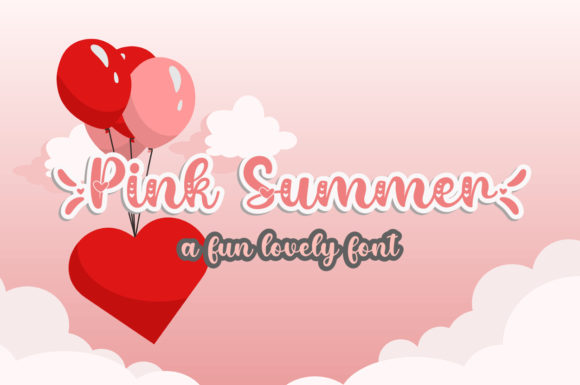
Dive into the realm of elegance and grace with Pink Summer Font, a breathtaking script typeface that will transform your designs into captivating works of art. Its characters, like nimble dancers, pirouette along the baseline, adding a touch of sophistication and charm to every word.
Indulge in the romance and sweetness of Pink Summer's calligraphy, a font that evokes the essence of love and joy. Let your designs blossom with the beauty of its sweeping strokes and delicate flourishes. Picture the allure of wedding invitations adorned with Pink Summer's enchanting script, or the allure of branding materials that exude a timeless charm.
Unleash your creativity and let Pink Summer's magic elevate your designs to new heights. Its PUA encoding grants you effortless access to a world of stunning glyphs and ligatures, empowering you to craft intricate and visually captivating compositions. Whether you're crafting logos, posters, or social media graphics, Pink Summer will leave an unforgettable impression.